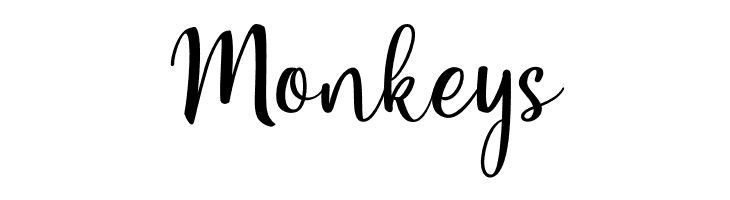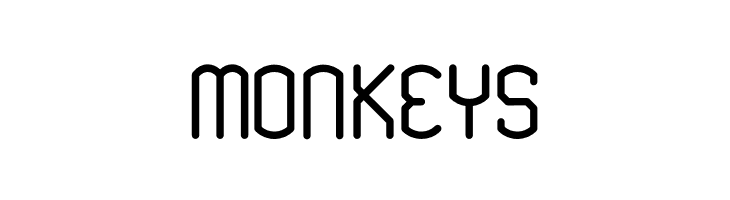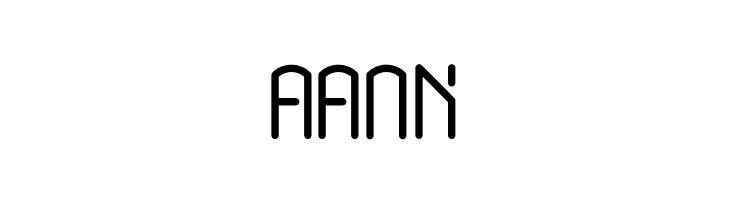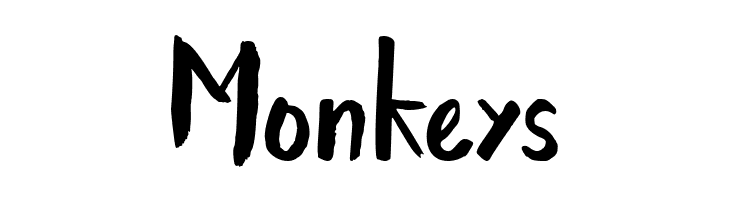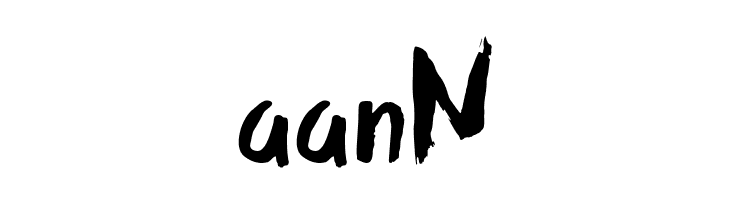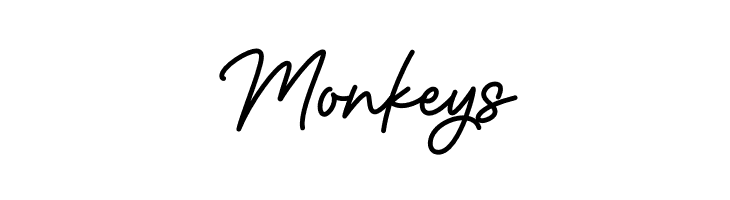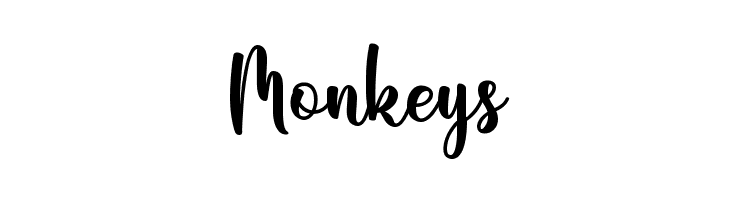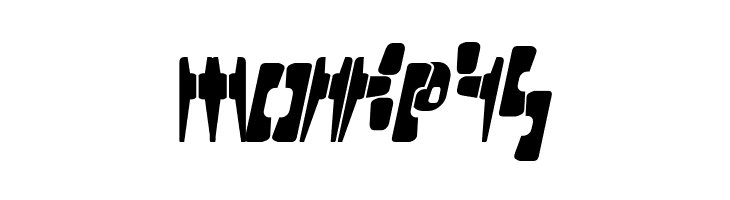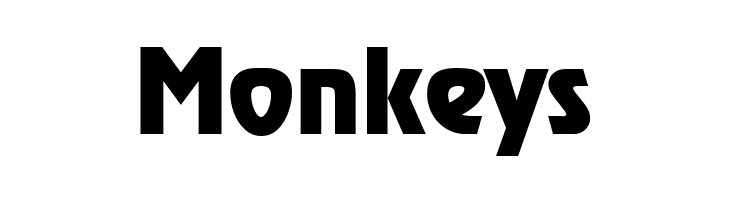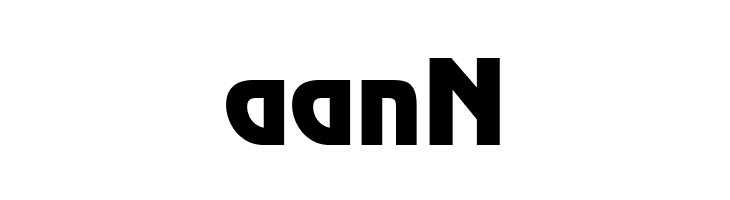
A modern, geometric font with rounded edges and a clean, uniform appearance.
A casual, flowing handwritten font with smooth, cursive strokes.
A bold, angular font with a futuristic and avant-garde style.
Playful handwritten script font.
A lively handwritten font with expressive and dynamic letterforms.
A bold, expressive font with brush-like strokes and a hand-drawn appearance.
A bold, distressed decorative font with a vintage, grunge aesthetic.